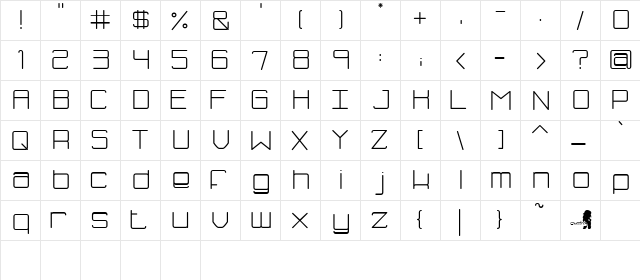
SM_bluisM Regular
Design Context for SM_bluisM Typeface
SM_bluisM is a composed and adaptable typeface that performs quietly and consistently across a wide range of design contexts.